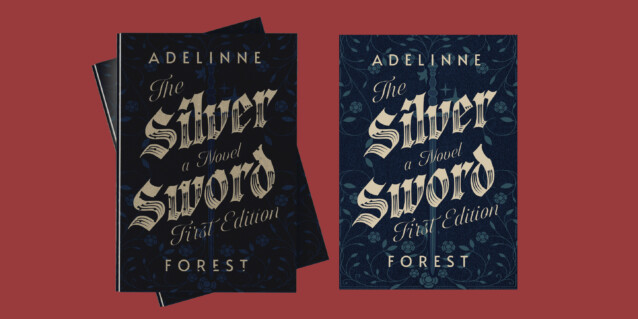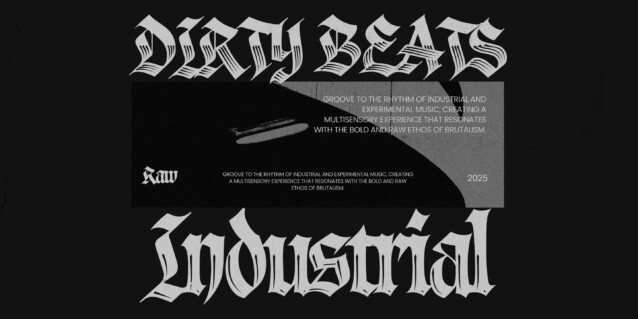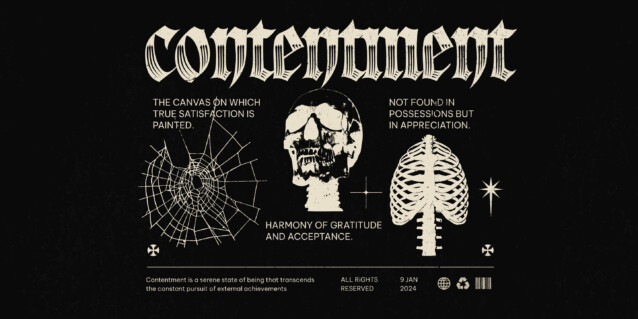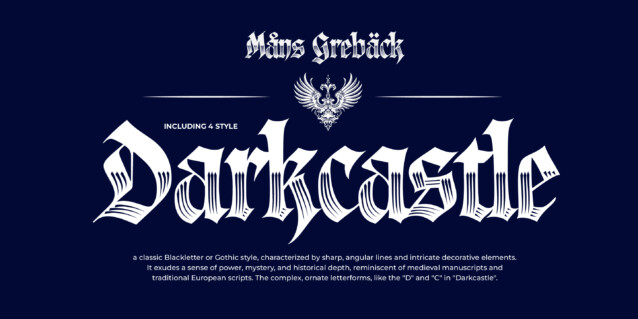
Darkcastle Font
Darkcastle Font is a distinct blackletter font manufactured by Mans Greback. It will enhance your craft with its beautiful characters and its ability to stand out. Perfect for projects that require a sense of historical grandeur or mystical allure, Darkcastle captures the essence of medieval calligraphy, bringing a touch of darkness and elegance to the page. The font is built with advanced OpenType functionality and has a guaranteed top-notch quality, containing stylistic and contextual alternates, ligatures, and more features; all to give you full control and customizability. It has extensive lingual support, covering all Latin-based languages, from Northern Europe to South Africa, from America to South-East Asia. It contains all characters and symbols you’ll ever need, including all punctuation and numbers.